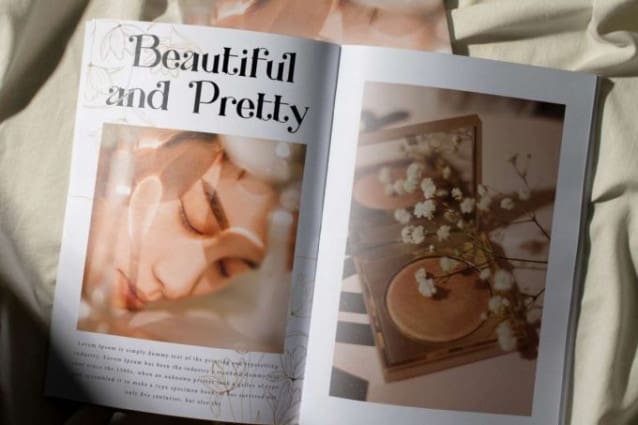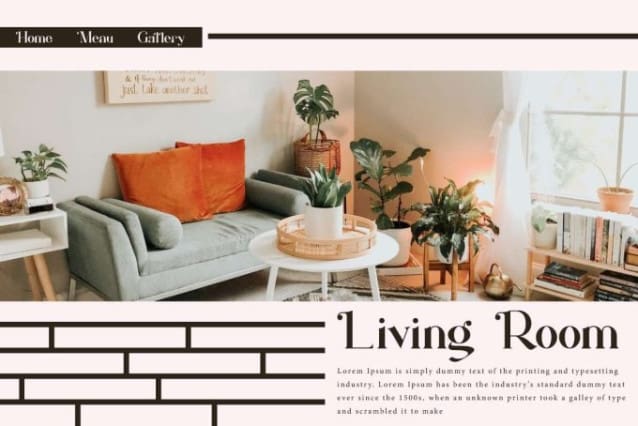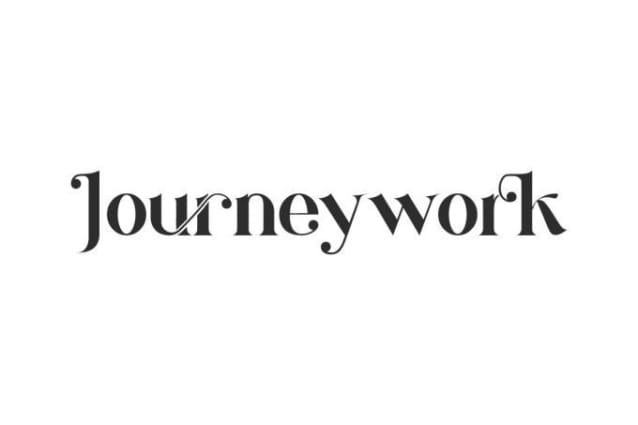
Journeywork Font
Journeywork Font is a uniquely luxury stylish serif display font. This can definitely help your business capture the essence of an expensive look, such as accessories, architect, bakery, boutique, clothing brand, cosmetic, café, fashion designer, florist garden, furniture, hotel, interior design, jewelry, photography, printing, publishing, real estate, restaurant, skincare, social media content, spa salon, writer, etc.
Journeywork Font includes full set of Uppercase and Lowercase Basic Characters, Number, Punctuation, Symbol, and Ligature. This will perfect and create a stunning elegant design, such as apps, billboard, blogs, brochure, business card, cover, flyer, header, labels, luxury branding materials, packaging design, poster, quote, screen print, signage, stationery, sticker, thank you card, title, website, and many more.